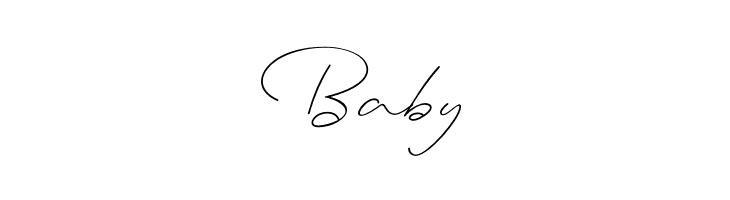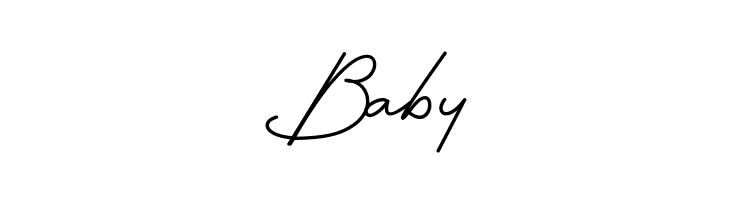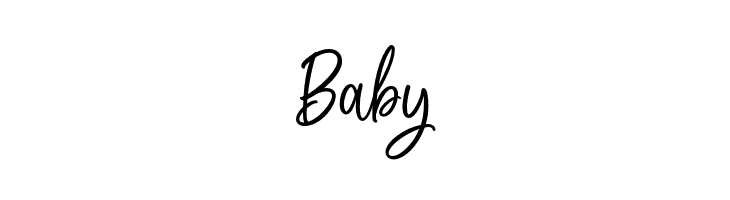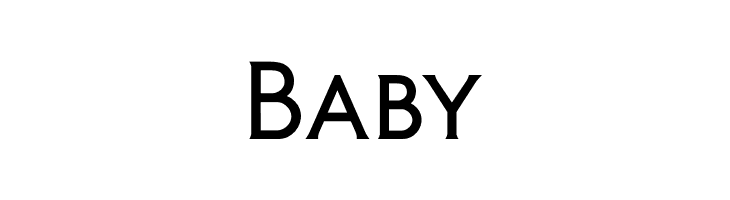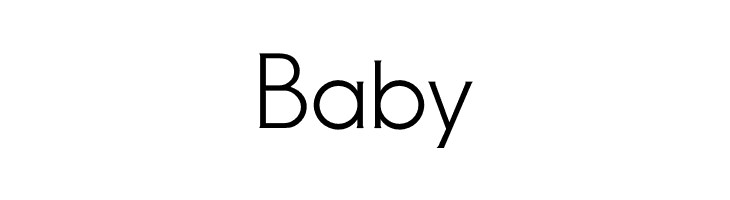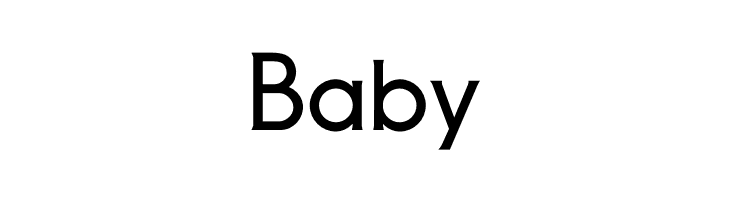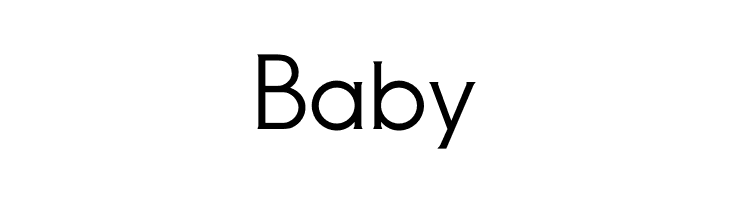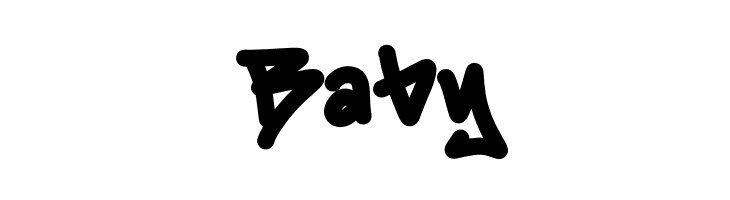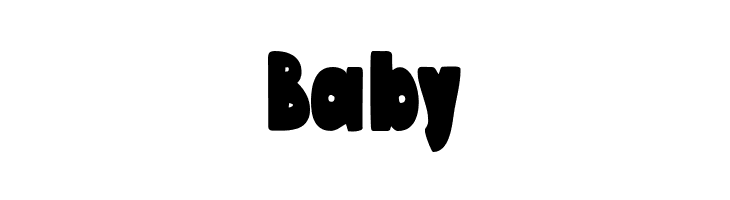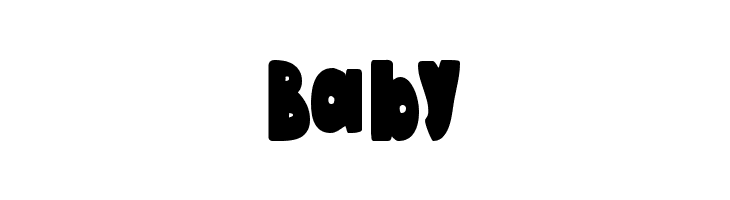
A bold, playful font with a bubbly, organic design.
A lively and elegant cursive script font with fluid connections.
A graceful script font with flowing, cursive characters and consistent stroke width.
An elegant, cursive font with a natural handwriting style.
A modern, geometric sans-serif font with clean lines and balanced characters.
A modern sans-serif font with a clean, balanced design.
A modern, elegant font with clean lines and excellent readability.
A clean, modern sans-serif font with a minimalist design.
A clean, modern font with uniform stroke width and excellent readability.
A modern sans-serif font with clean lines and a professional appearance.
Minimalist line-art font using hand shapes for each character.
A dynamic script font with elegant curves and medium contrast.
A flowing, cursive font with elegant loops and curves.
A lively, flowing script font with elegant cursive letters and intricate loops.
An elegant script font with smooth, flowing strokes and a cohesive cursive style.
A flowing, elegant script font with high contrast and interconnected letters.
A bold, expressive brush-style font with dynamic strokes.
A dynamic and flowing script font with elegant curves and a slight slant.
A bold, dynamic font with a futuristic and sporty style.
A bold, expressive script font with flowing, cursive letterforms.
A dynamic and elegant script font with a modern touch.
A bold, dynamic script font with expressive strokes and lively character.
A bold, dynamic script font with sweeping strokes and a casual elegance.
A bold, playful font with chunky, rounded characters for a whimsical look.
A bold, playful font with a chunky, bouncy style.
A playful, paw-print adorned font with a whimsical, hand-drawn style.
A playful, connect-the-dots style font with a whimsical, hand-drawn appearance.
A whimsical, floral-themed decorative font with hollow letters.
A whimsical, flower-embellished decorative font with a playful, hand-drawn style.
A modern, elegant handwritten font with fluid, cursive letterforms.
A dynamic, cursive handwritten font with fluid strokes and connected letters.
A fluid and elegant handwritten script font with a modern touch.
Bold, playful handwritten font with a festive, casual vibe.
A playful, bold script font with a handwritten style.
A fluid, handwritten font with a casual and personal touch.